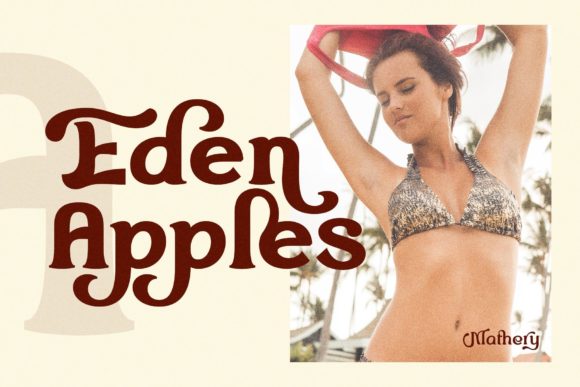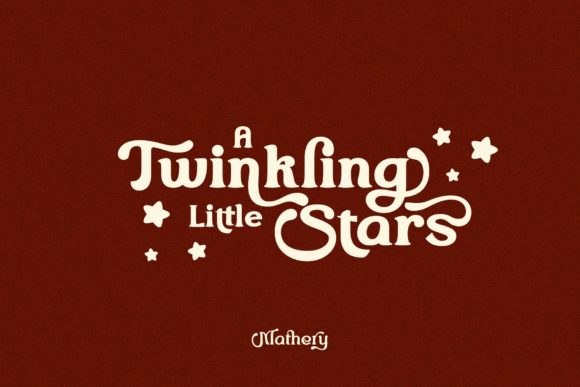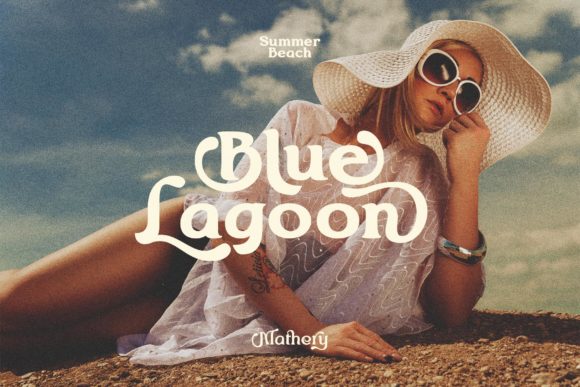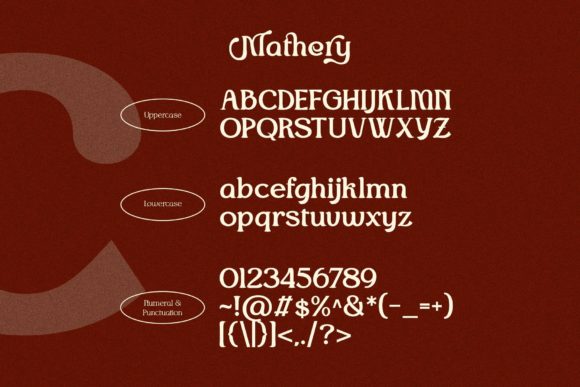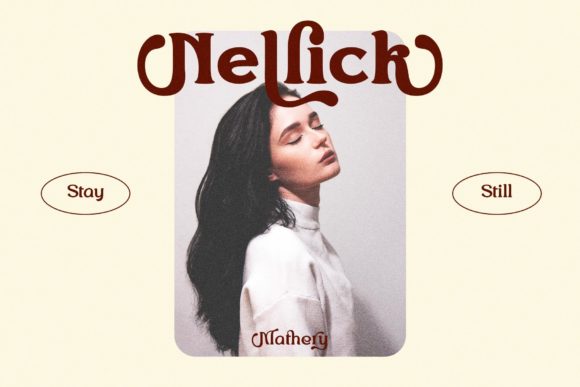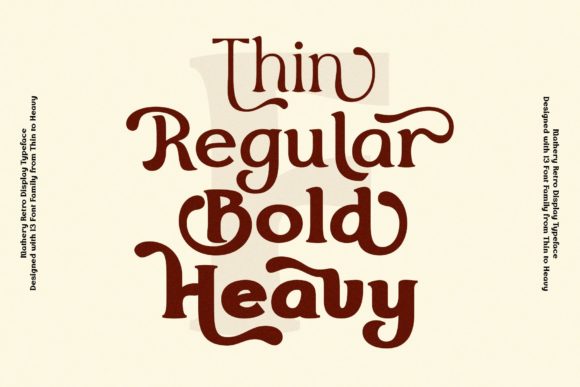
Introduction to Mathery Font
Do you remember the excitement of discovering that perfect font for your creative project? The one that elevates your design from ordinary to extraordinary? For designers, finding the right font can be a game-changer, and that’s exactly what we’re about to explore – the Mathery Font.
With its cool, retro styled serif design, Mathery Font is a stunning addition to any design resource. Its beautiful and balanced character makes it a versatile choice for a wide range of creative projects, from branding to publishing. What’s more, it’s PUA encoded, allowing you to access all the glyphs and swashes with ease, making it a high-quality design asset that’s worth exploring.
Key Features of Mathery Font
- Features a clean and modern design, suitable for various creative projects, from logos to typography-based designs.
Honest Review: Mathery Font
I recently had the opportunity to work with the Mathery Font, and I must say it’s a game-changer for any creative project. This high-quality font is a fantastic addition to any designer’s toolkit.
- ✨ Beautifully crafted letters that add a touch of elegance to any design.
- ⚠️ Some users may find the font too stylized, which may not be suitable for all design applications.
Overall, I’m thoroughly impressed with the Mathery Font. Its unique design and high-quality features make it a valuable resource for any designer working on a creative project. While it may have some limitations, I believe it’s a worthwhile addition to any design toolkit.
Mathery Font is commonly used in graphic design, digital art, and creative projects that require a unique and modern font. It’s also great for creating titles, headings, and body text in presentations and documents.